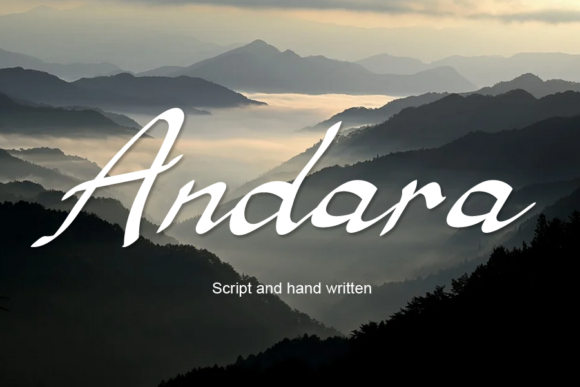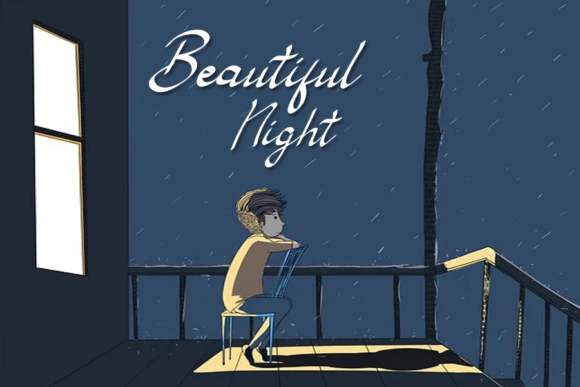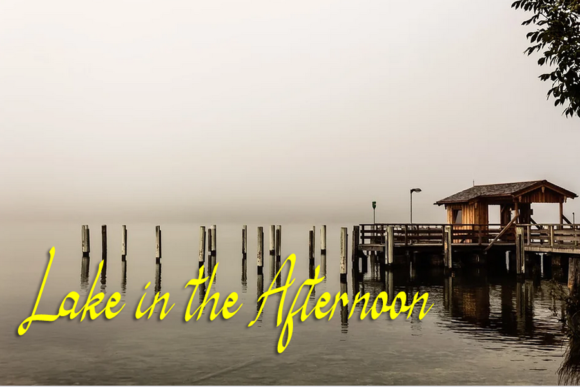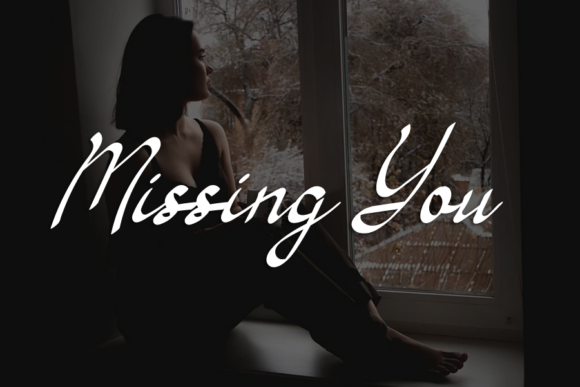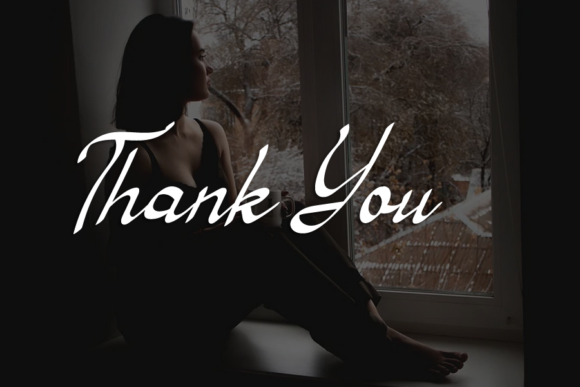
Andara Font
About Andara Font
Andara is a free-flowing handwritten font, described by an elegant touch, perfect for your favorite projects. Fall in love with its versatile and authentic style and use it to create lovely designs.